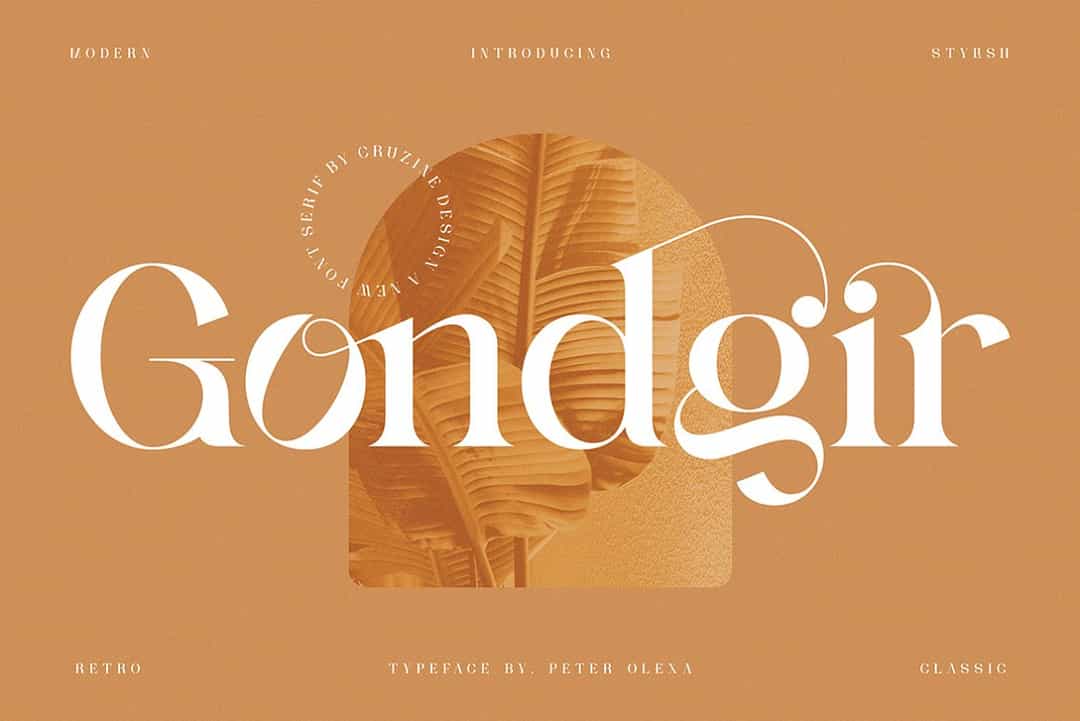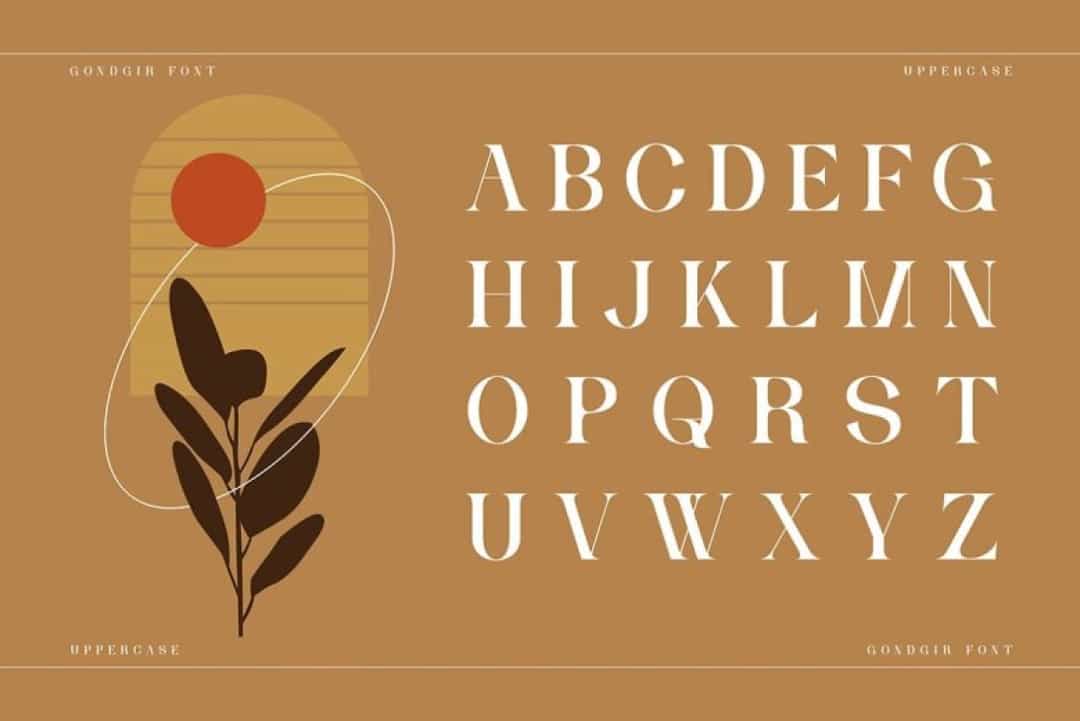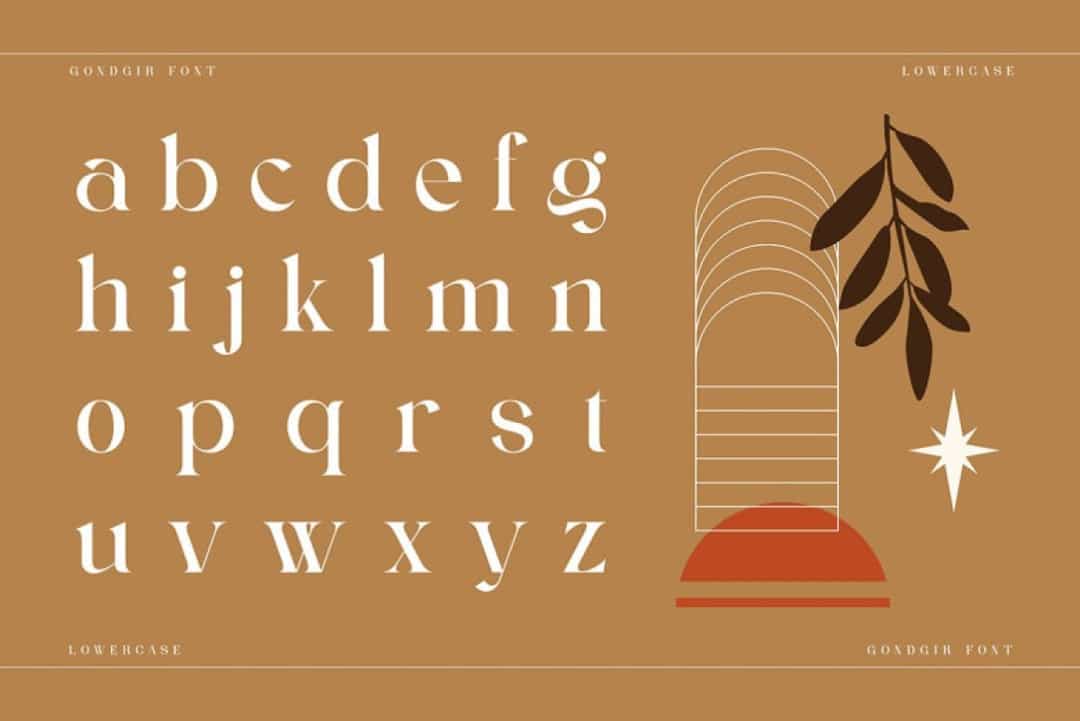
Gondgir Serif Font – stylish, trendy and modern serif fonts perfect for your dream projects! Elegant, bold and classic design make Gondgir font an excellent choice when it comes to branding endeavors – many ligatures and alternative fonts provide options for making logo designs or website headers truly standout!